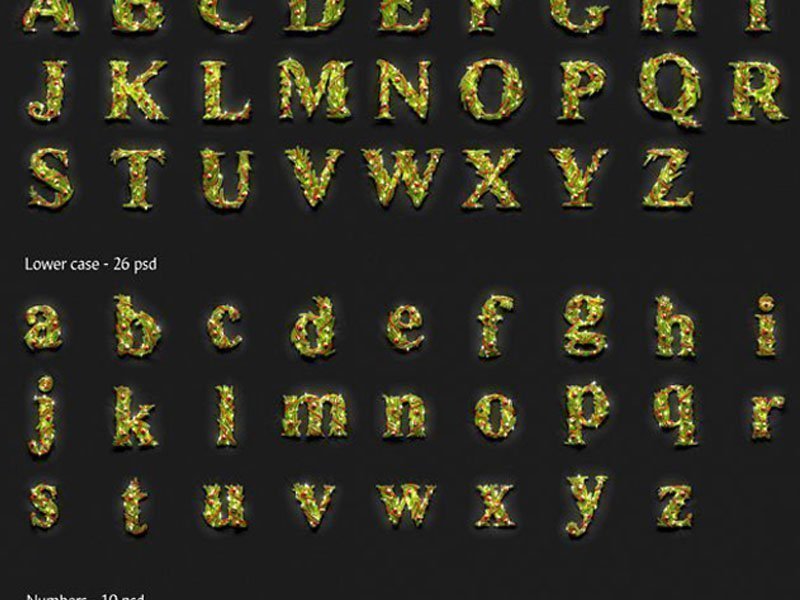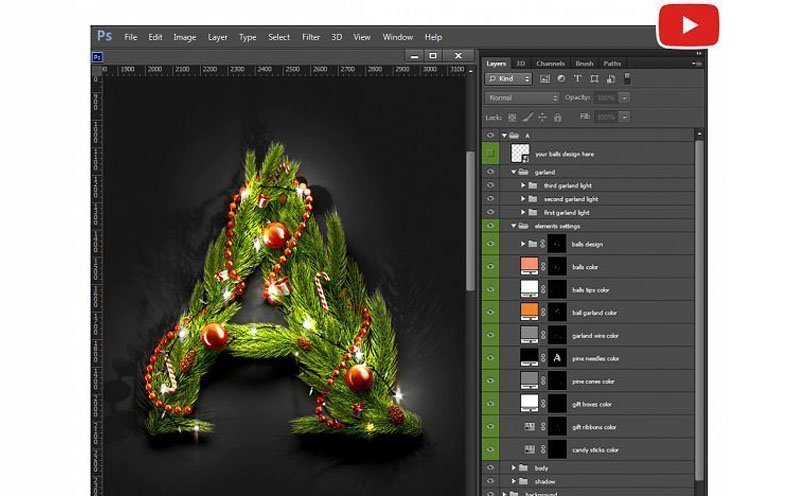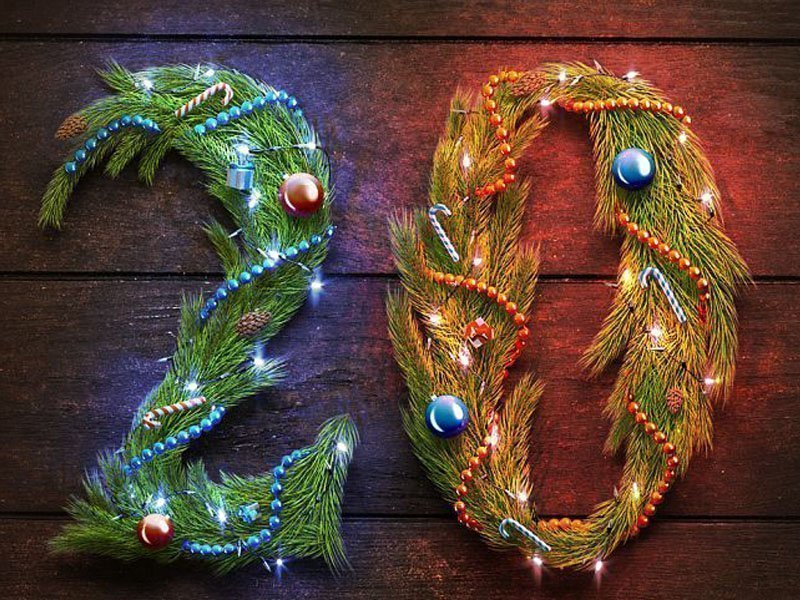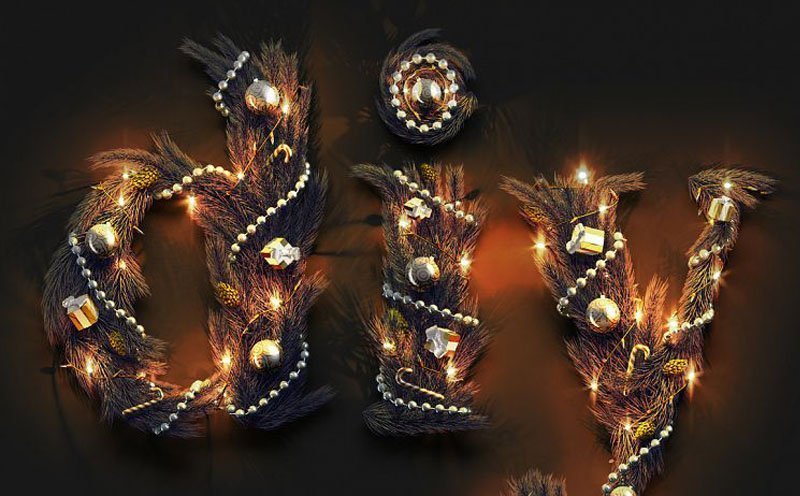
Christmas Animated Typeface
Christmas Animated Typeface is a fully handmade animated font for Adobe Photoshop, where you put each pine branch so that all 62 characters look unique.
Editable elements:
• balls color and design;
• balls tips;
• ball garland;
• garland wire;
• pine needles;
• pine cones;
• gift boxes
• gift ribbons;
• candy sticks;
• garland light color;
• shadow;
• background;
This is not a font (like TrueType, OpenType, and PostScript formats), it’s a set of animated characters in the PSD format for Adobe Photoshop.